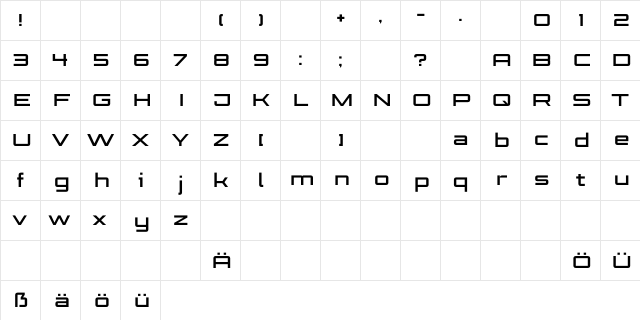
Karrera Regular
| Designer | Anton Schimanowski |
Design Context for Karrera Typeface
Karrera offers clean, dependable letterforms without strong stylistic allegiance, making it a practical choice for designers who need flexibility.